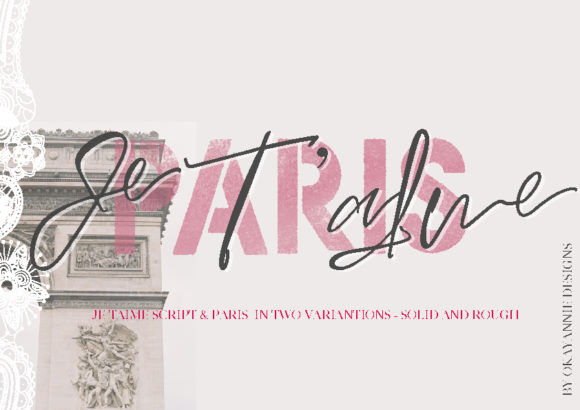
Journey to the Heart of Romance with Paris Je T'aime Font: A Tale of Parisian Beauty
Immerse yourself in the enchanting world of Paris Je T'aime, a breathtaking script font duo that captures the essence of Parisian charm and elegance. Embark on a typographic odyssey with this captivating font, inspired by the city of love's romantic aura and timeless allure. Paris Je T'aime invites you to express your emotions with a touch of sophistication and a dash of whimsy.
Unleash the Beauty of Your Words:
With Paris Je T'aime, your words will dance across the page with Parisian grace. Its meticulously crafted characters exude elegance, making it the perfect choice for creating stunning invitations, heartfelt letters, and eye-catching social media posts. Each stroke of the pen, each twist and turn of the letters, tells a tale of love, passion, and the magic of Paris.
A Font Duo for Every Occasion:
Paris Je T'aime is a versatile font duo that adapts effortlessly to various design projects. Whether you're designing a wedding invitation, creating a chic fashion magazine, or crafting a heartfelt personal note, Paris Je T'aime will add a touch of Parisian flair to your creations. Its versatility knows no bounds, making it a must-have for any designer or creative seeking a touch of romance in their work.
Embrace the Parisian Ambiance:
Allow Paris Je T'aime to transport you to the cobblestone streets of Paris, where love blooms at every corner. This font duo embodies the Parisian spirit, capturing the essence of romance, elegance, and joie de vivre. Let your words resonate with the charm of the Eiffel Tower, the allure of the Louvre, and the magic of the Seine River.
A Masterpiece of Typography:
Paris Je T'aime is a testament to the art of typography. Its creator, OkayAnnie Designs, has meticulously crafted each character to perfection, ensuring that every letter is a work of art. The result is a font duo that is both visually stunning and incredibly versatile. Paris Je T'aime is the epitome of beauty and functionality, making it the perfect choice for designers seeking to create truly captivating designs.